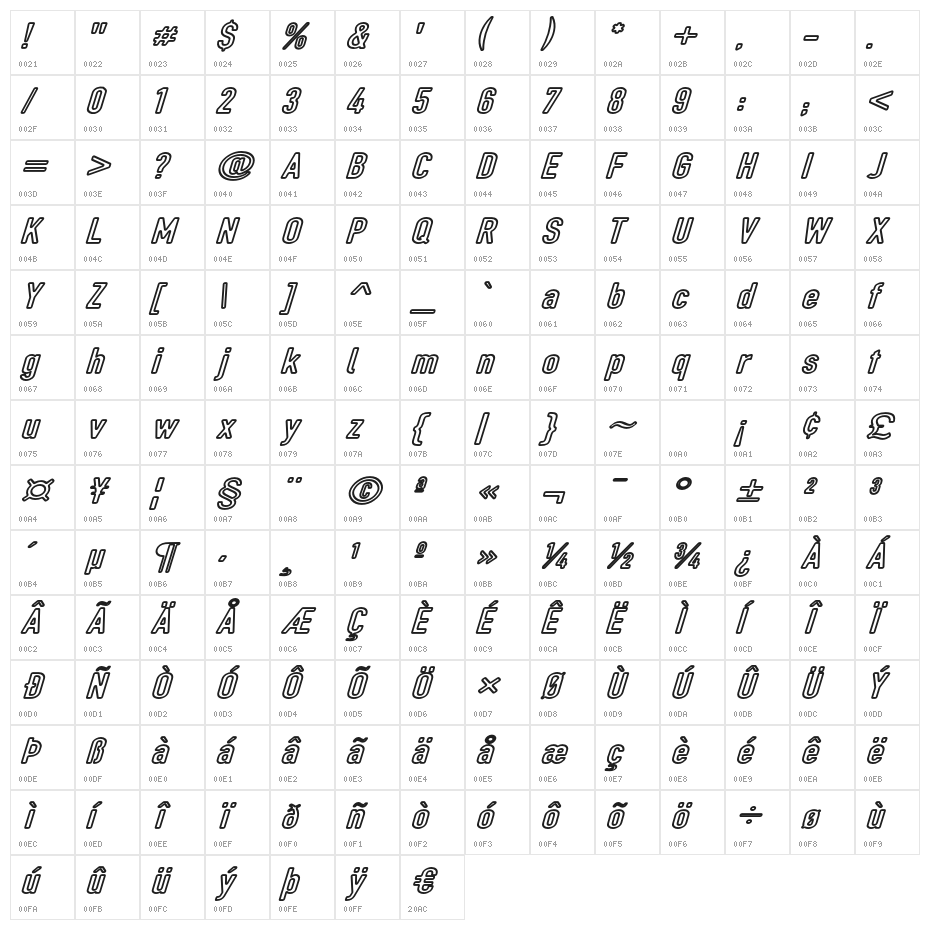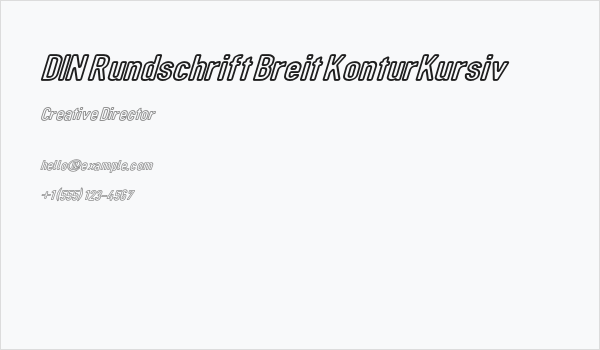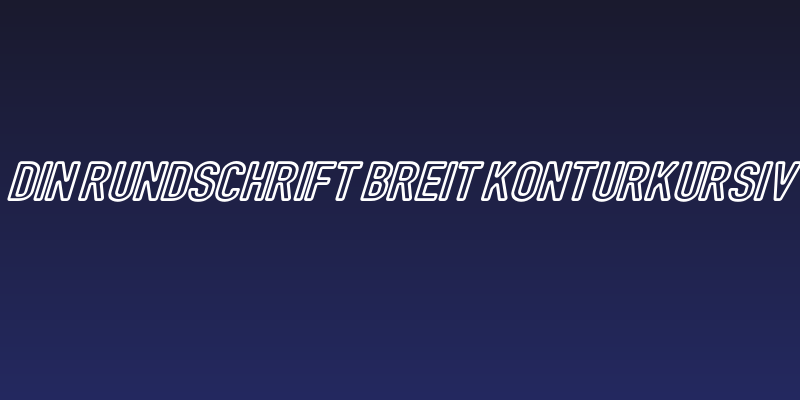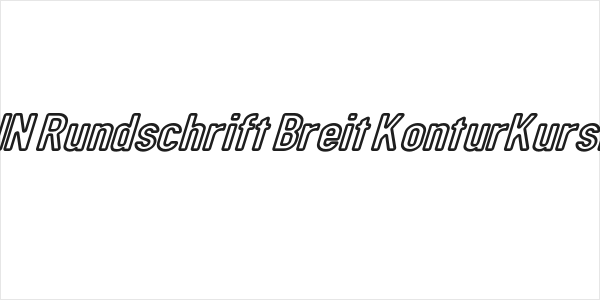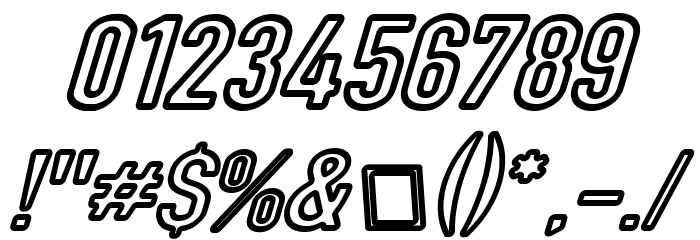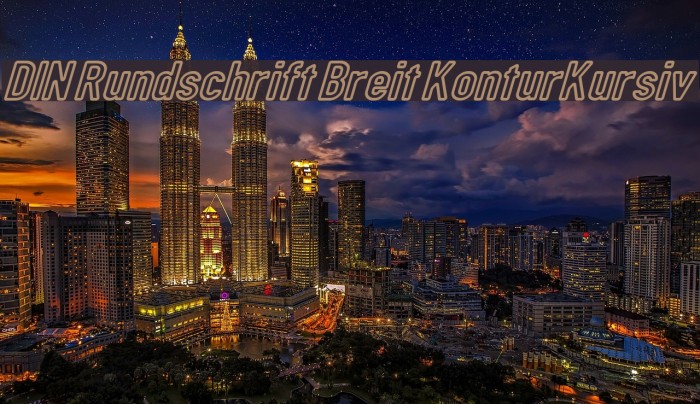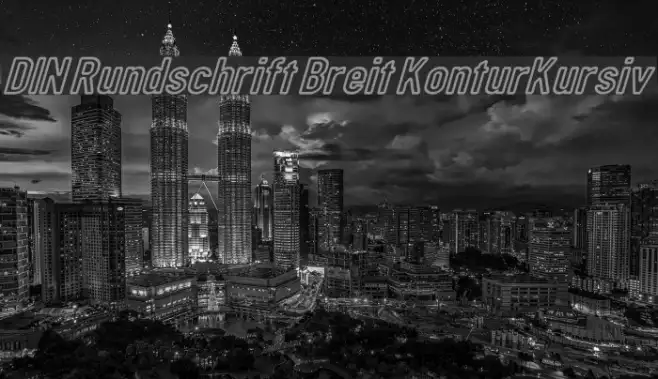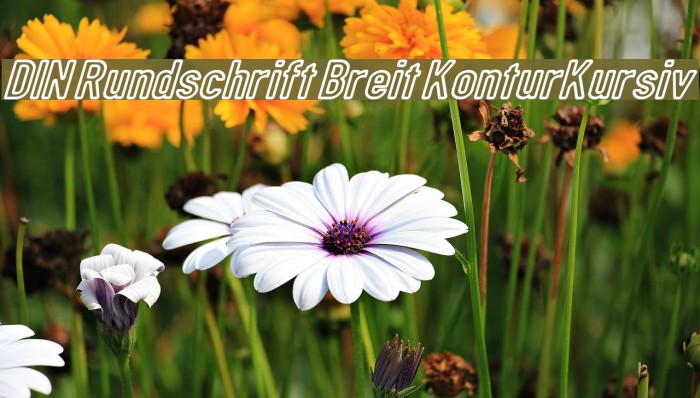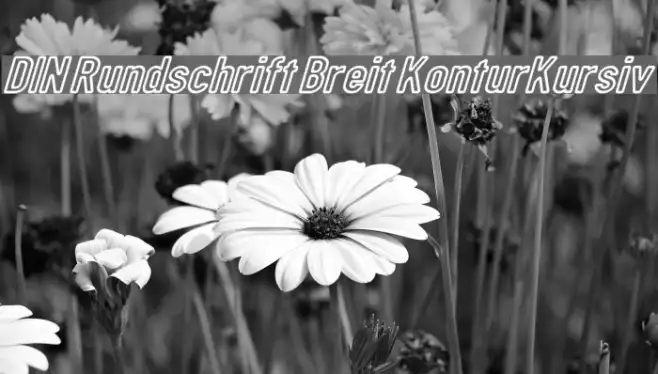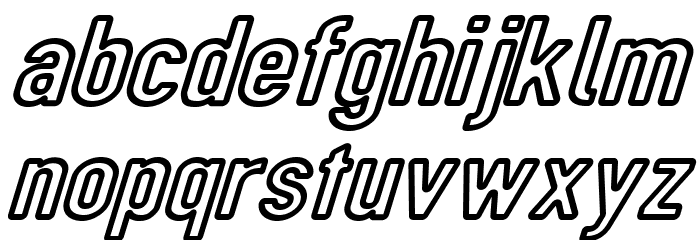
DIN Rundschrift Breit KonturKursiv Font
DIN Rundschrift Breit KonturKursiv Description
This font features a bold, outlined style with a modern and geometric appearance. The uppercase and lowercase letters are consistent in their rounded and contoured design, giving them a distinct and eye-catching look. The numbers and special characters maintain the same stylistic approach, ensuring uniformity across all glyphs. The italic slant adds a dynamic feel, making it suitable for creative and contemporary projects. The font's clear and structured form enhances readability while maintaining a unique aesthetic.
| Proposed Projects | Ideal for branding, headlines, posters, and modern design projects where a bold statement is needed. |